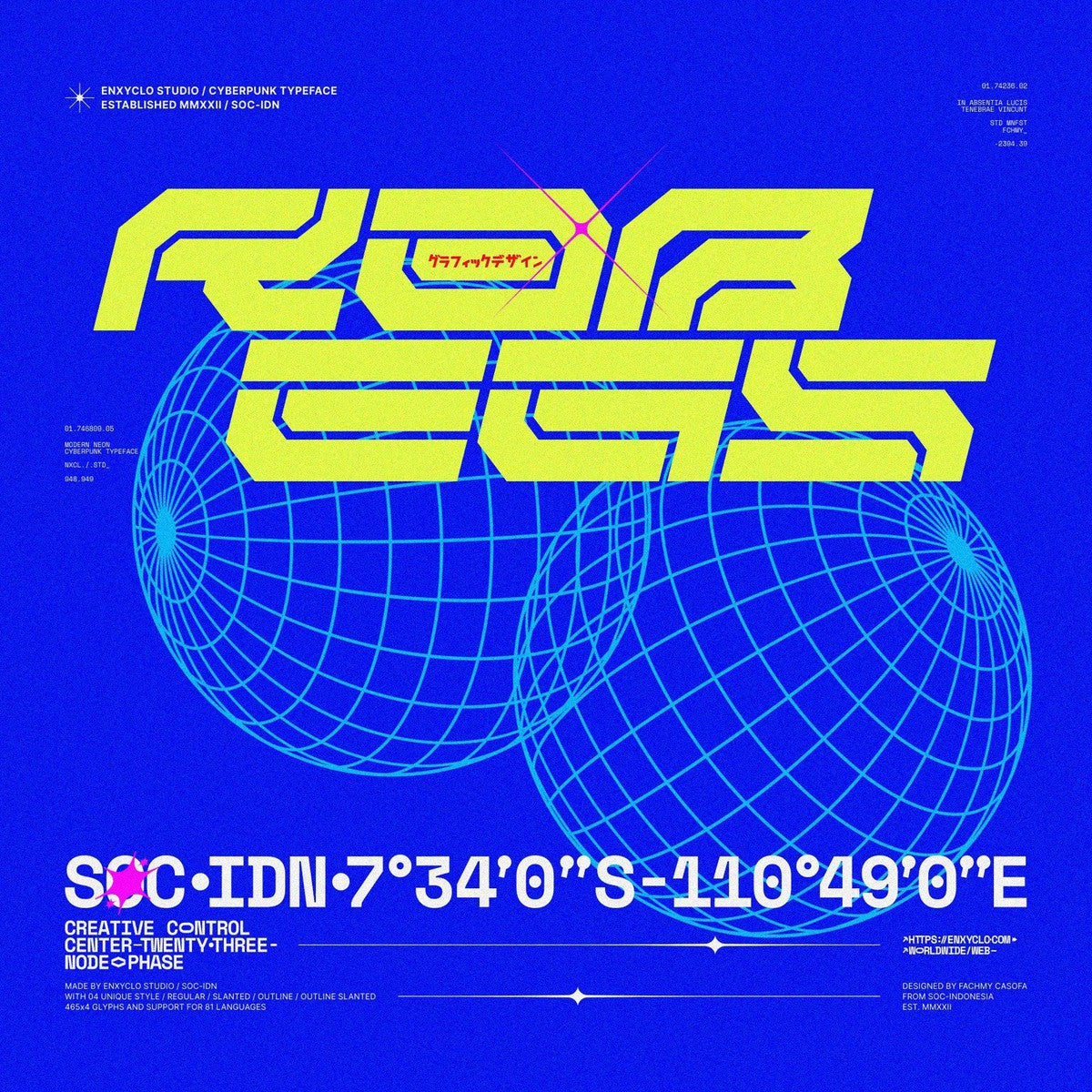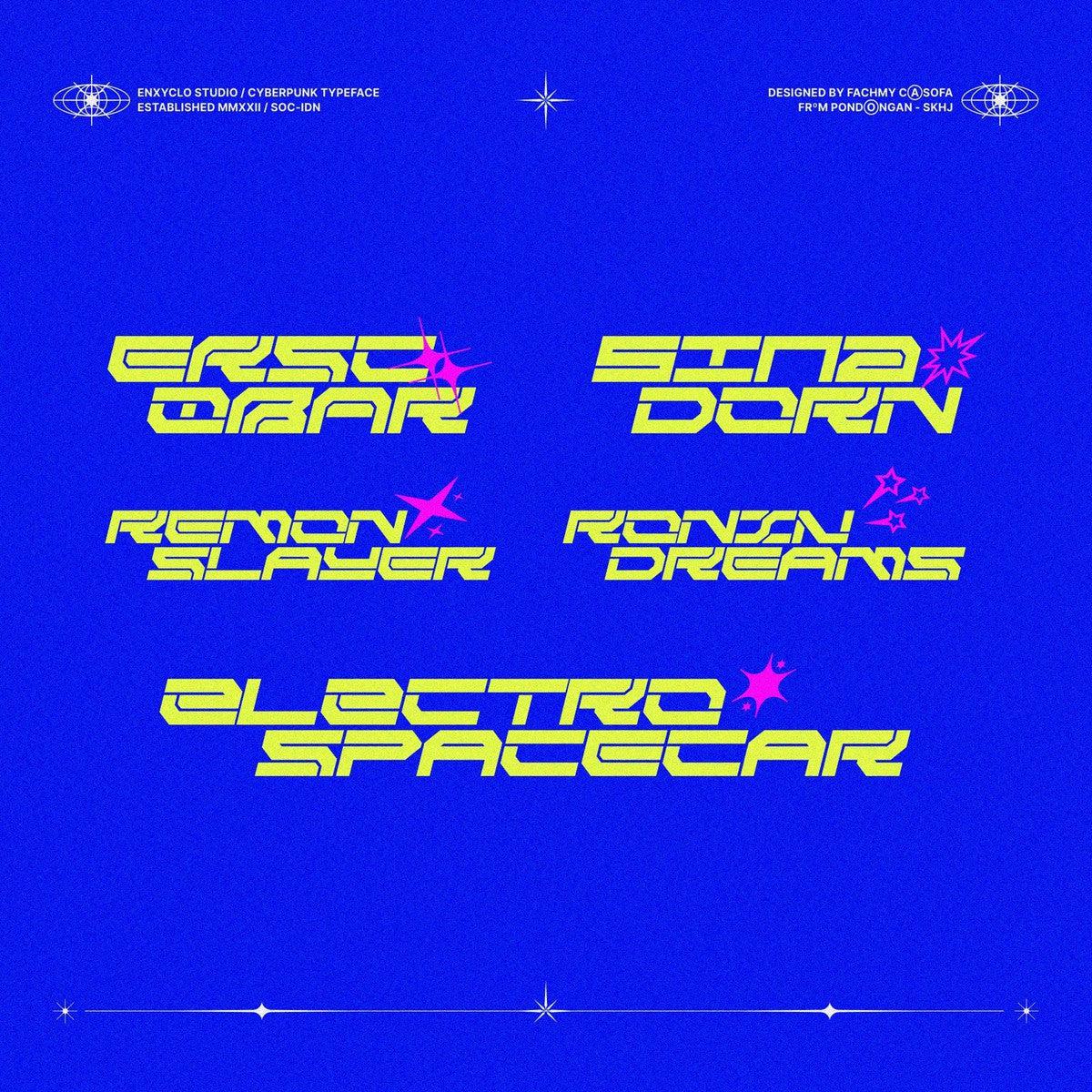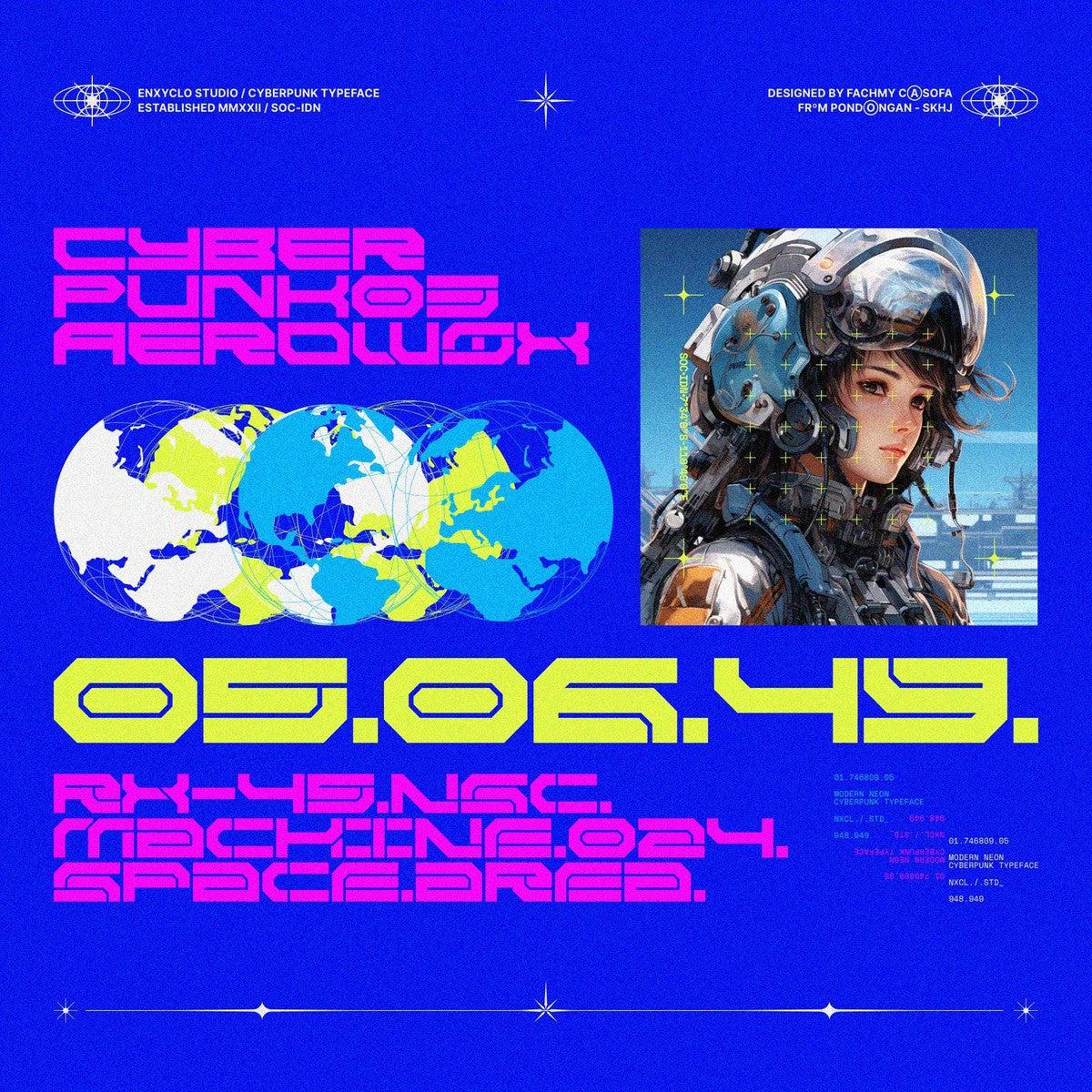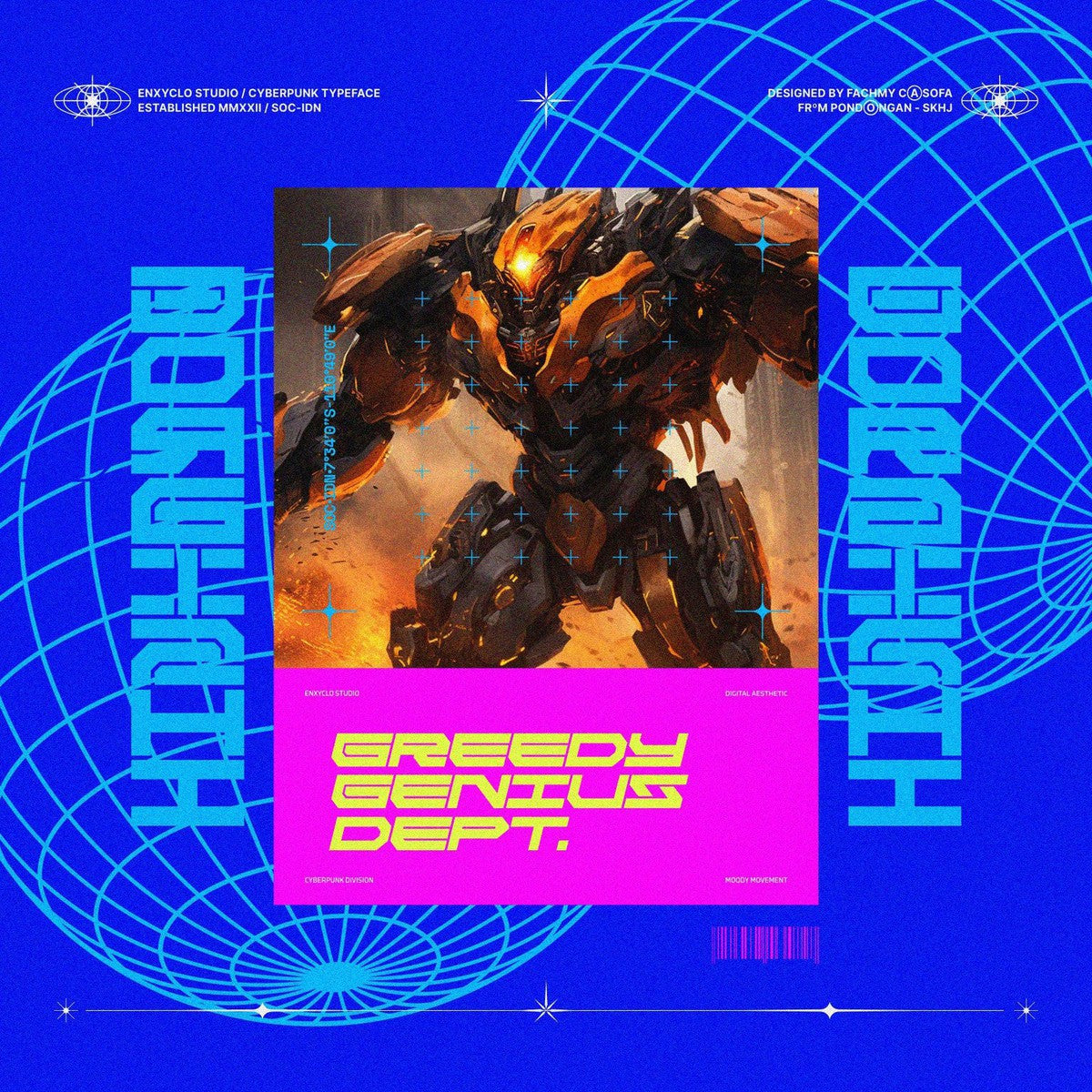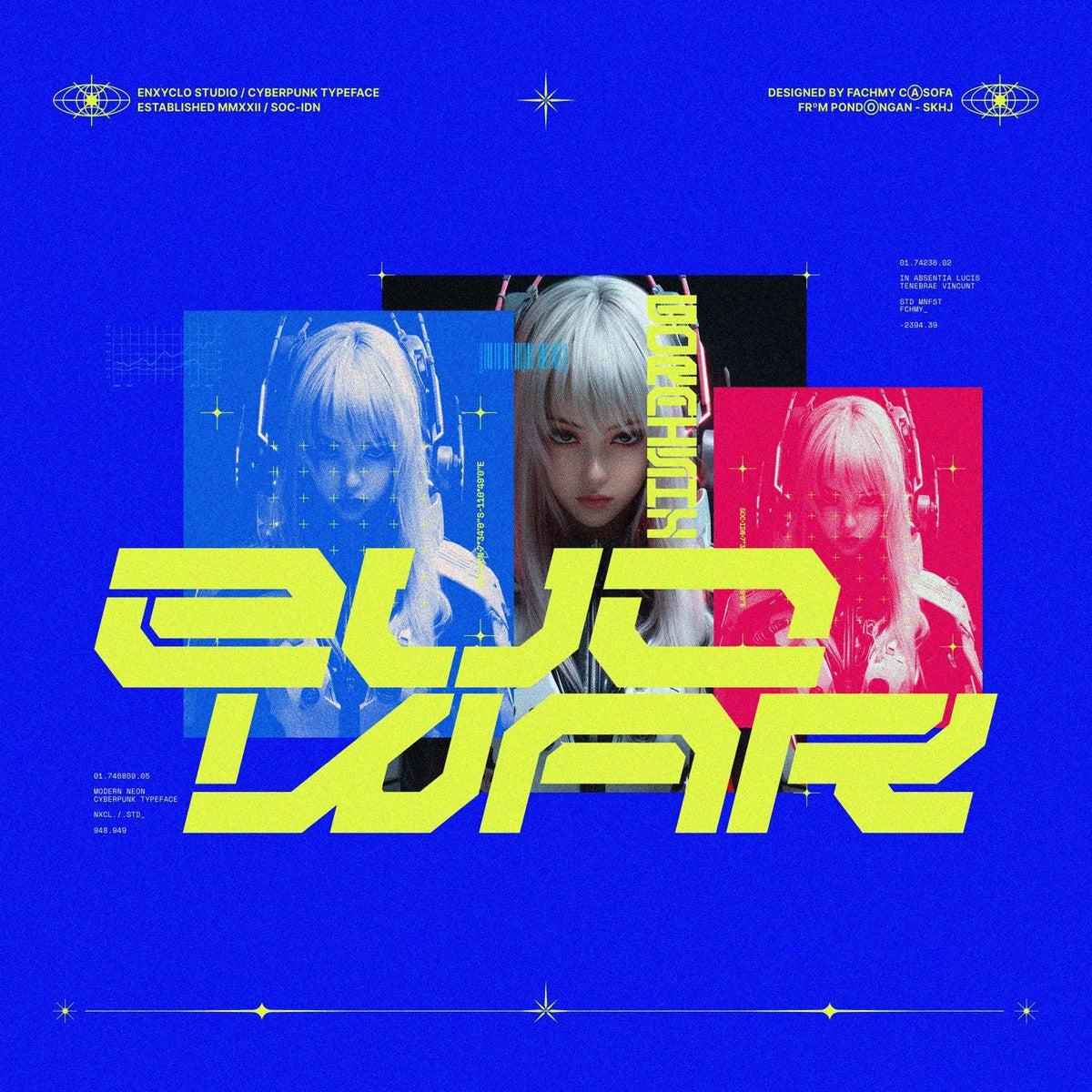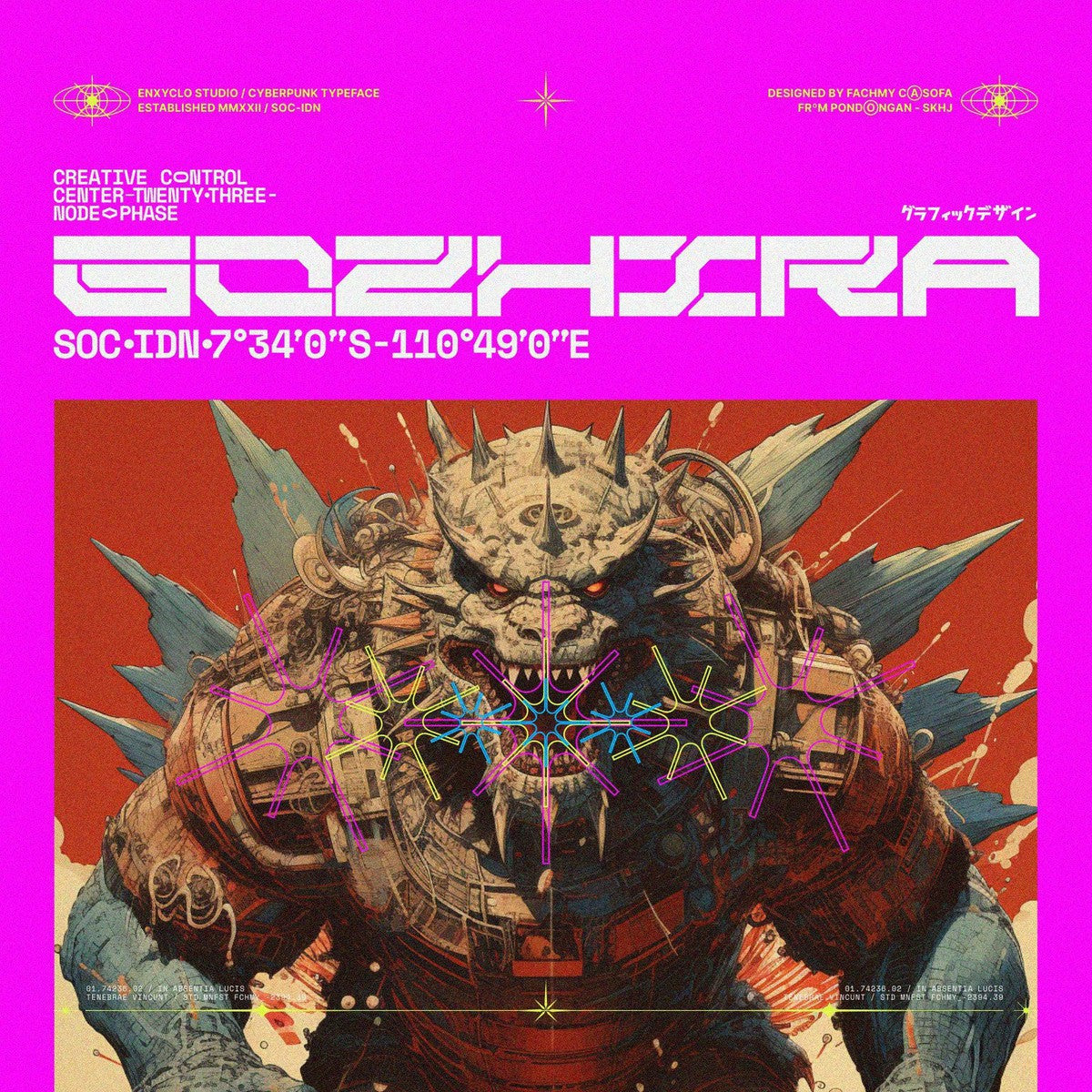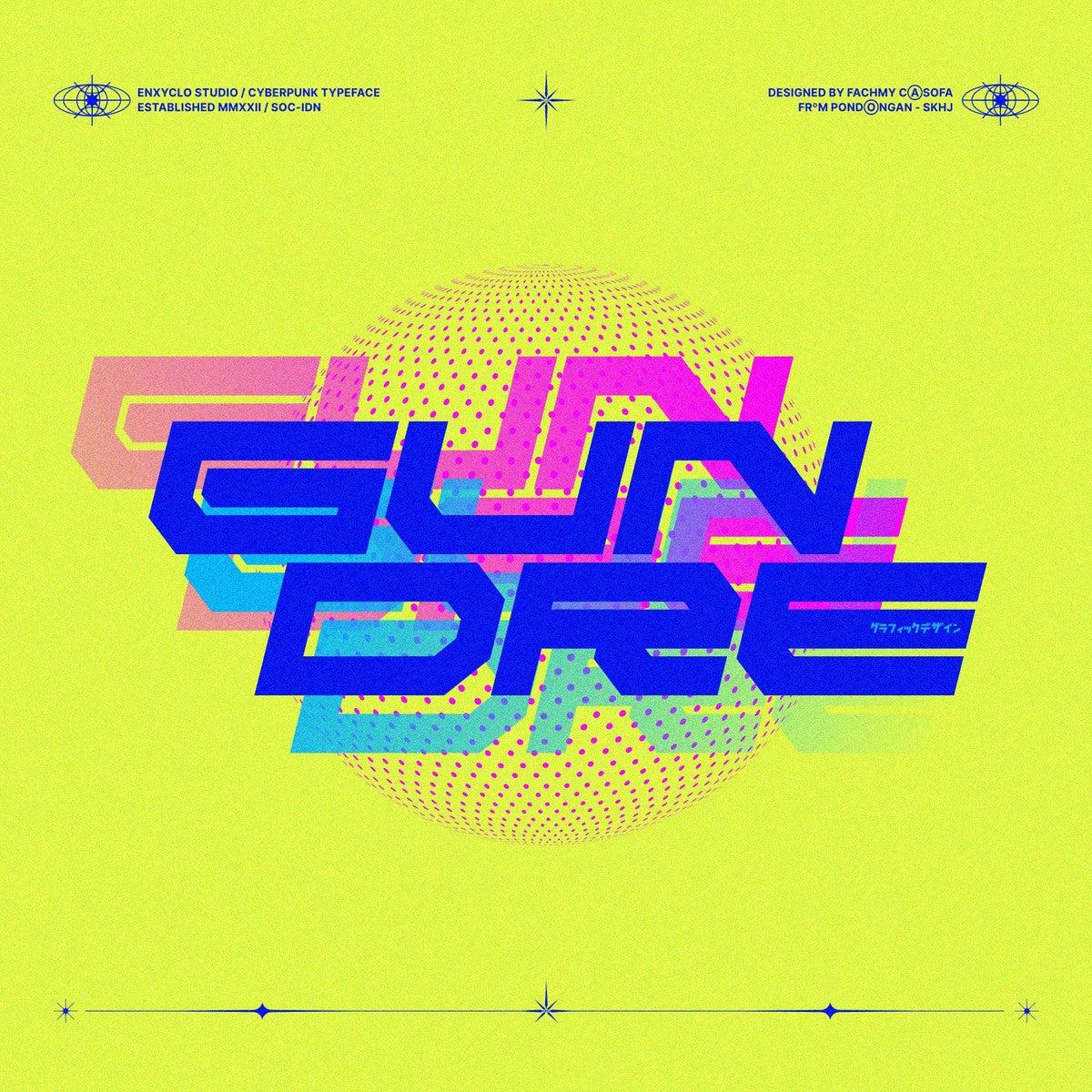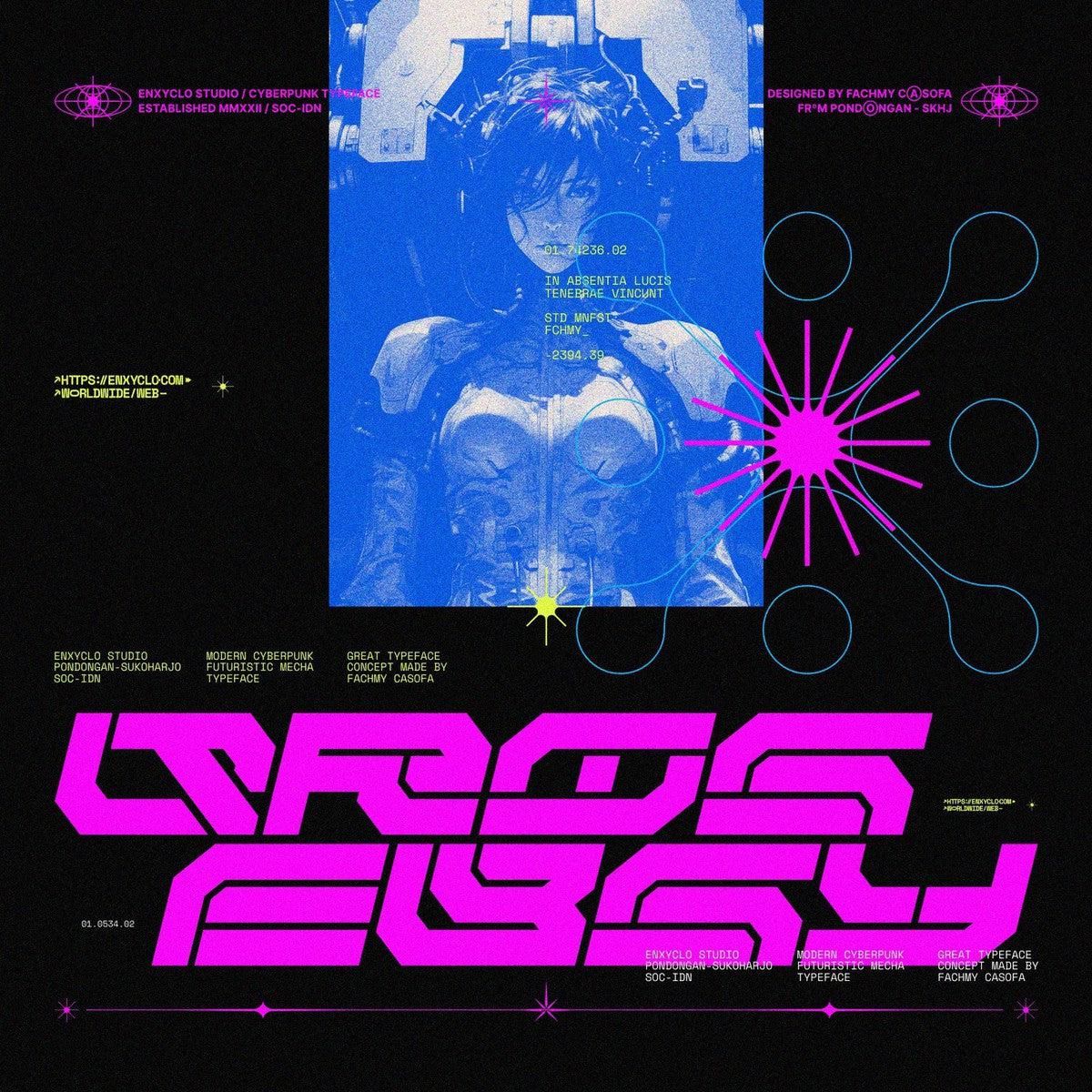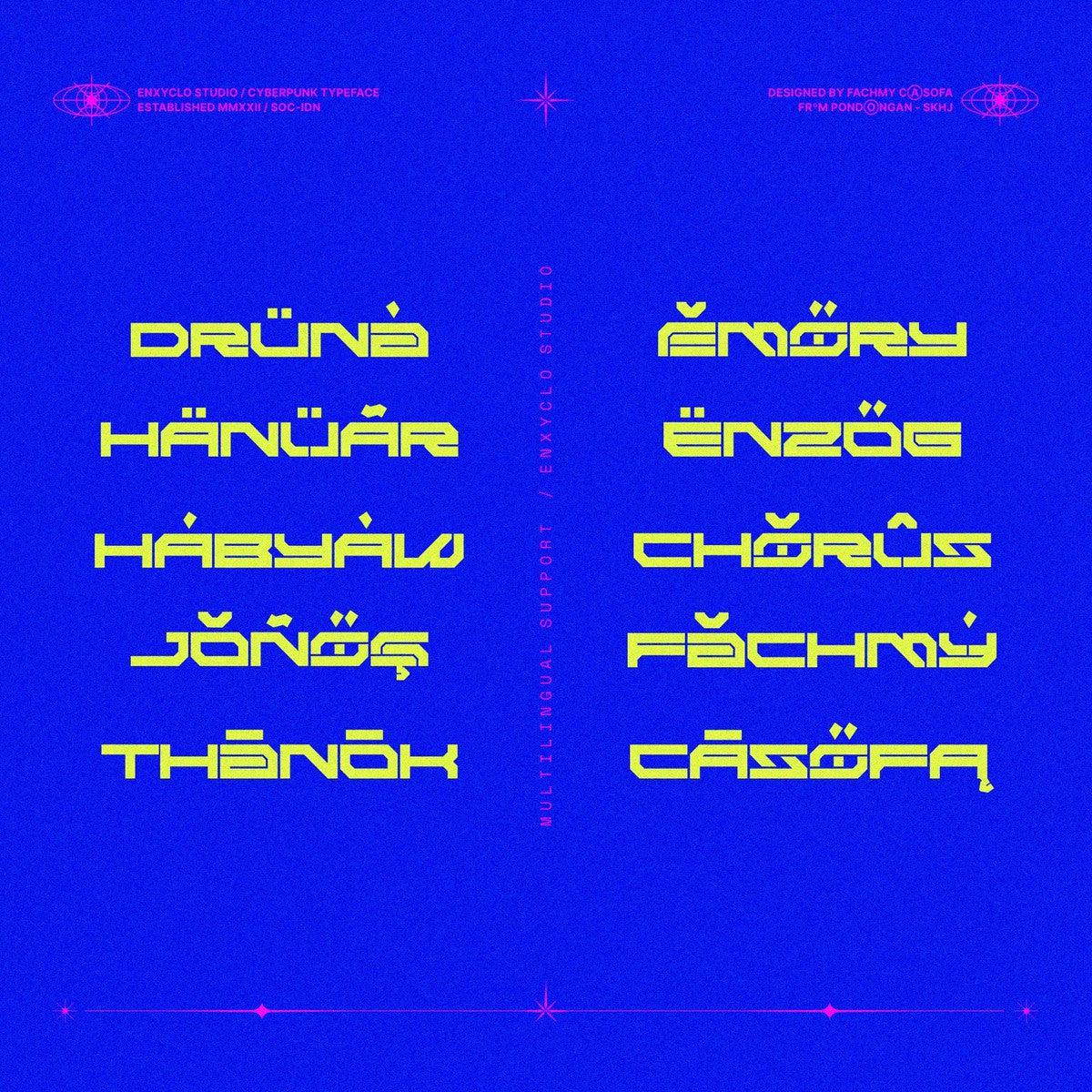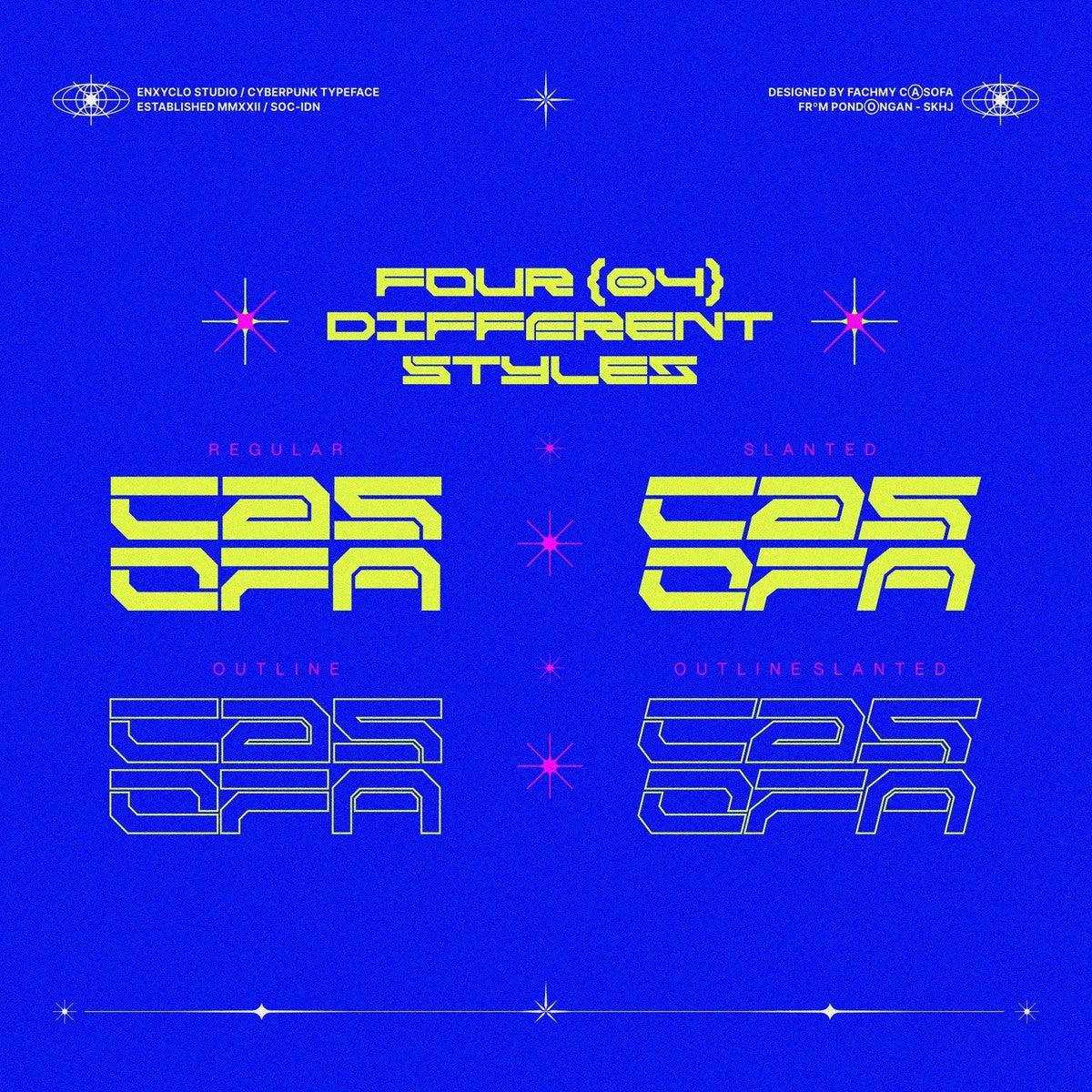
NCL RABEGS - Police Cyberpunk
NCL RABEGS is a cyberpunk, futuristic techno mecha font. It comes in four styles: Regular, Slanted, Outline, and Outline Slanted, with 465 glyphs for each style and a total of 1860 glyphs. The font supports uppercase, lowercase, numerals, punctuation, symbols, and stylistic sets 1-3. It is compatible with 81 languages and is available in True Type Font (TTF), Open Type Font (OTF), and
Ideal for cyberpunk and futuristic design projects. Perfect for websites, posters, logos, and album covers, ensuring a distinctive and innovative aesthetic that elevates your creative work.